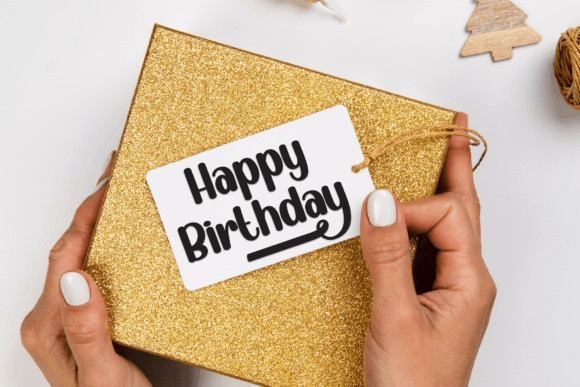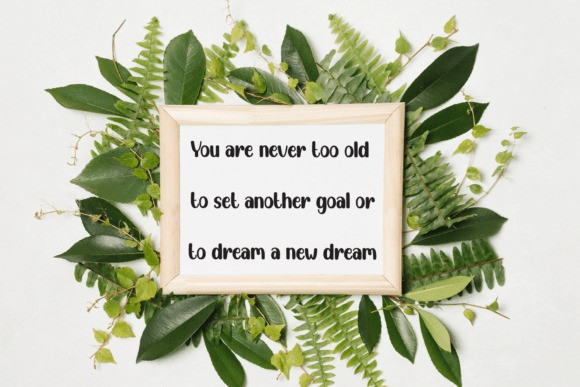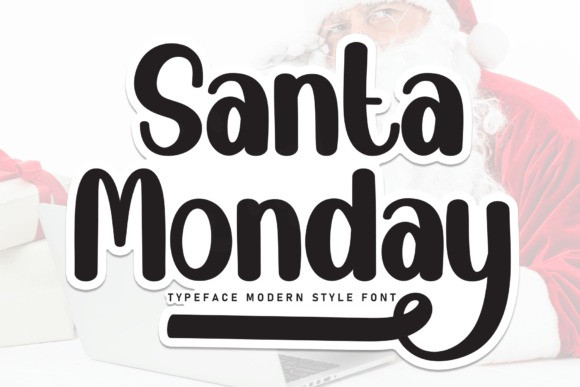
Santa Monday Font
Santa Monday Font is a flowing handwritten font, described by an elegant touch, perfect for your favorite projects. Fall in love with its incredibly distinct and timeless style and use it to create spectacular designs!